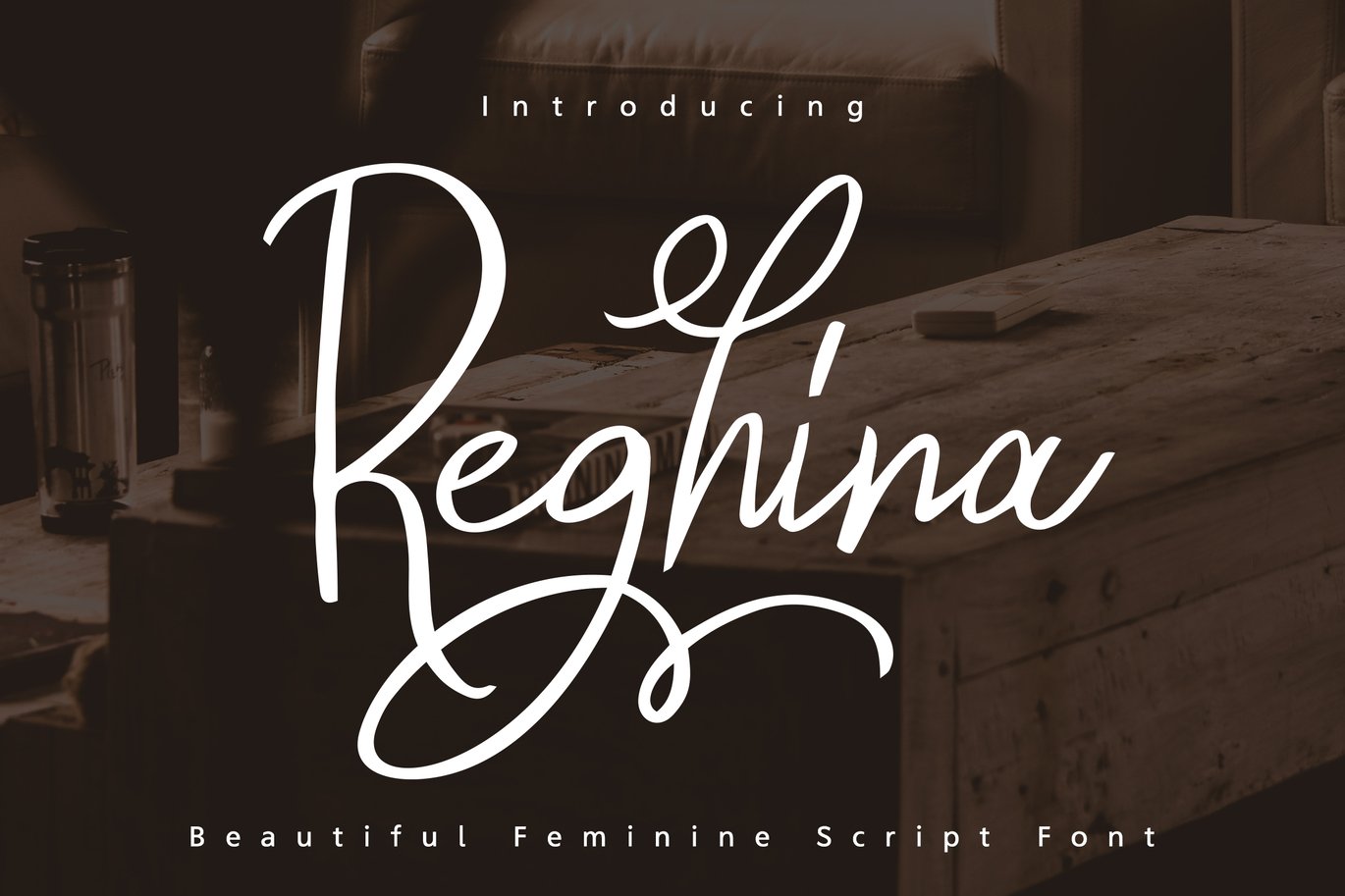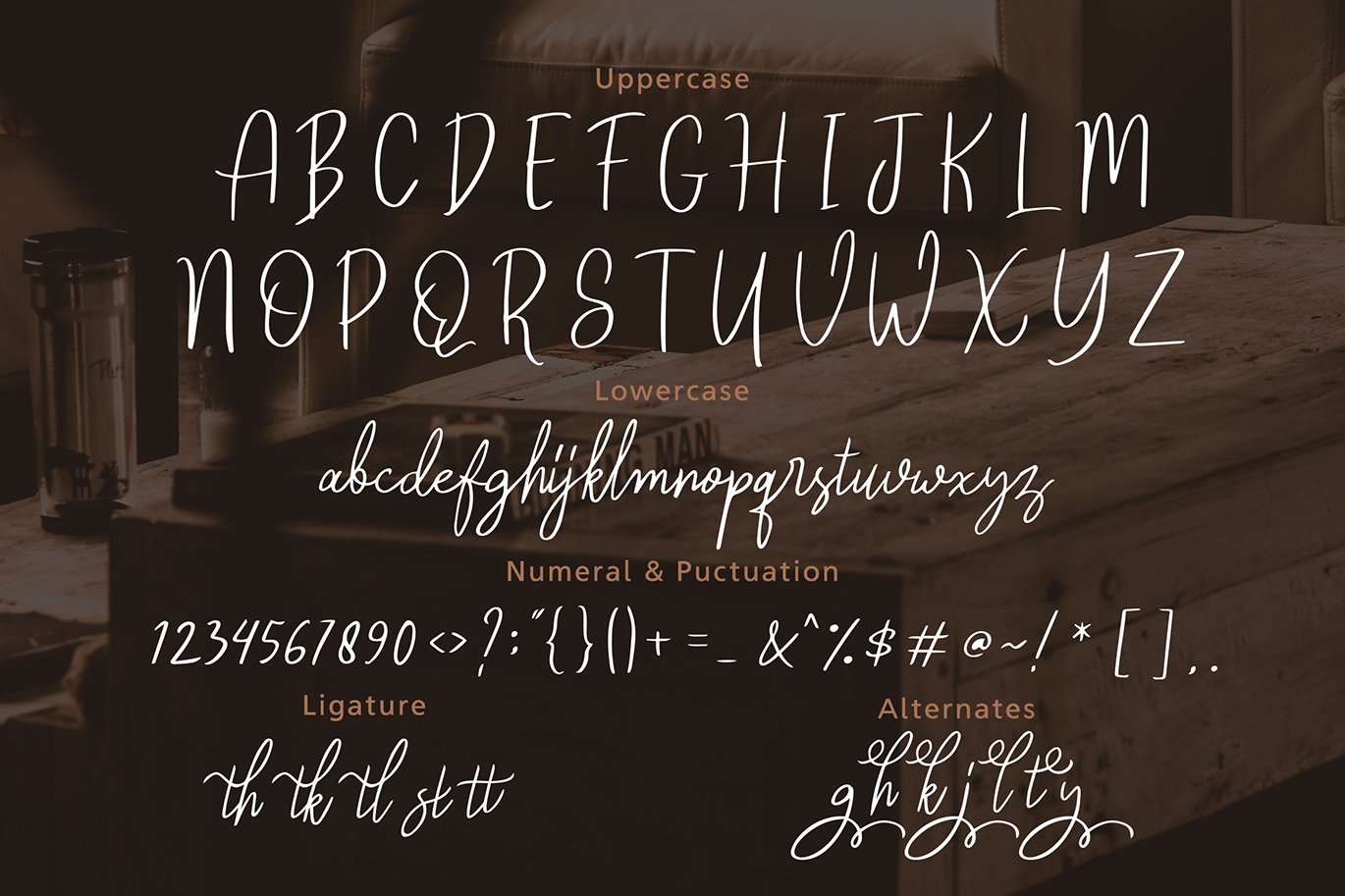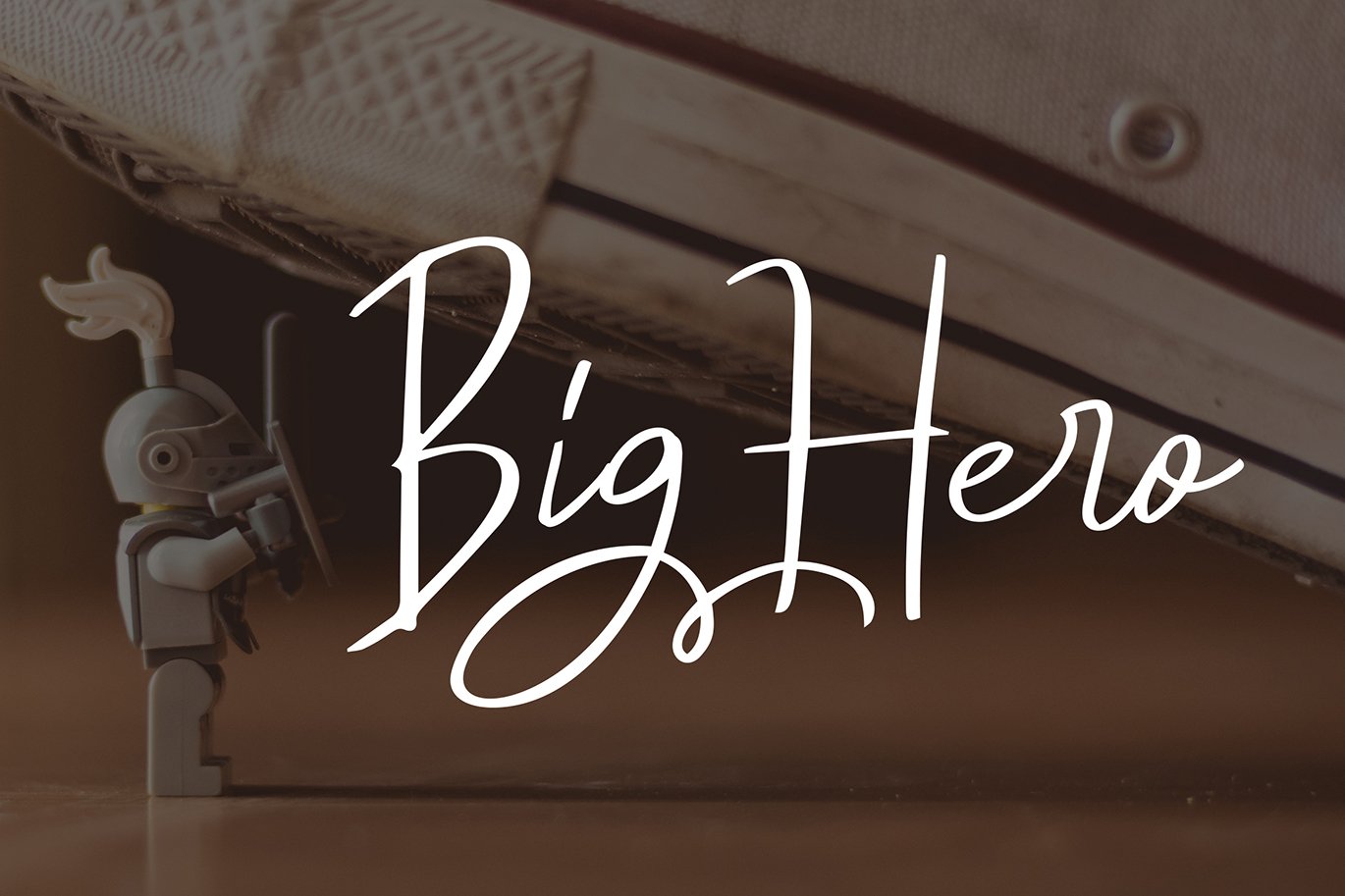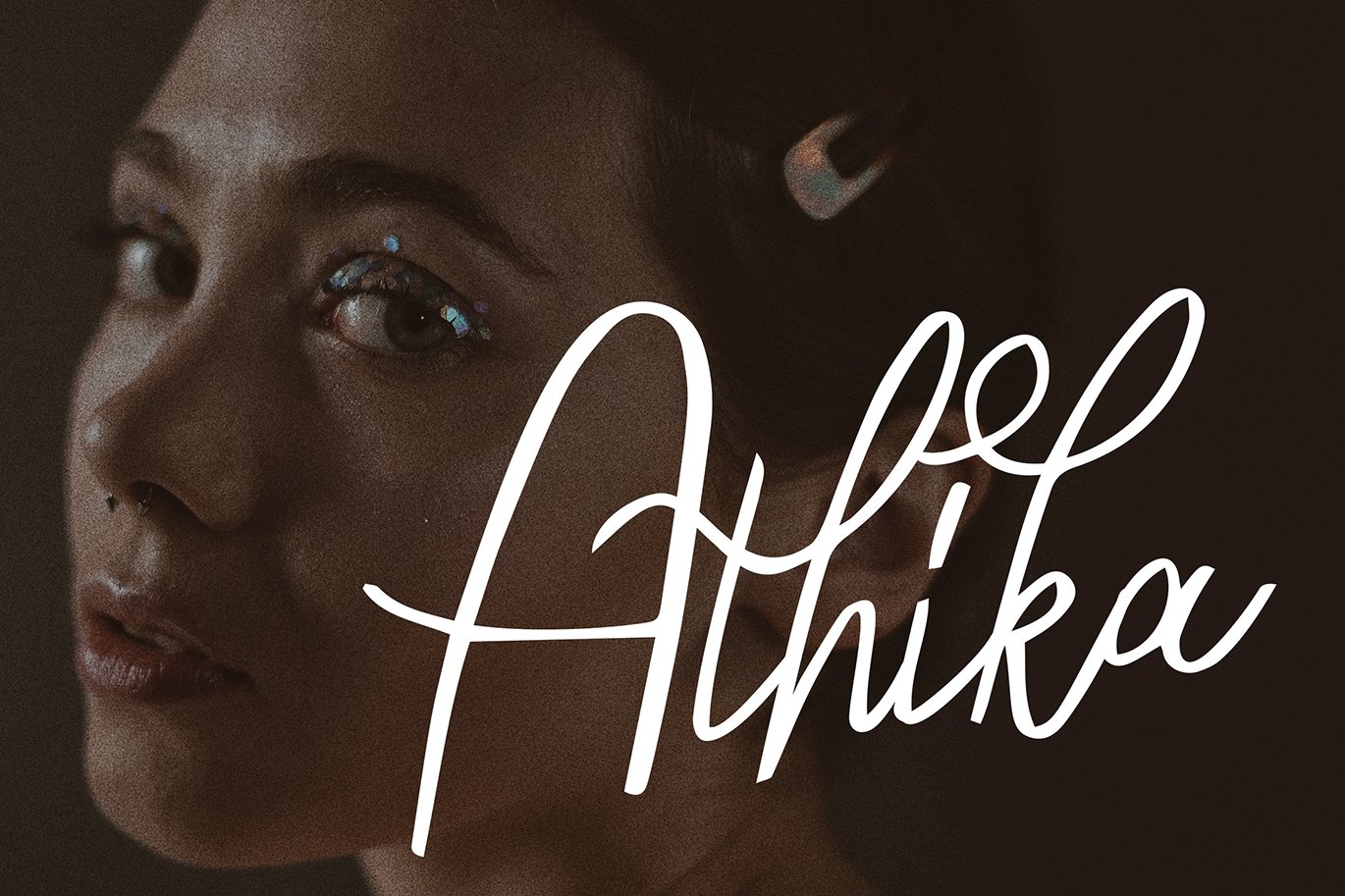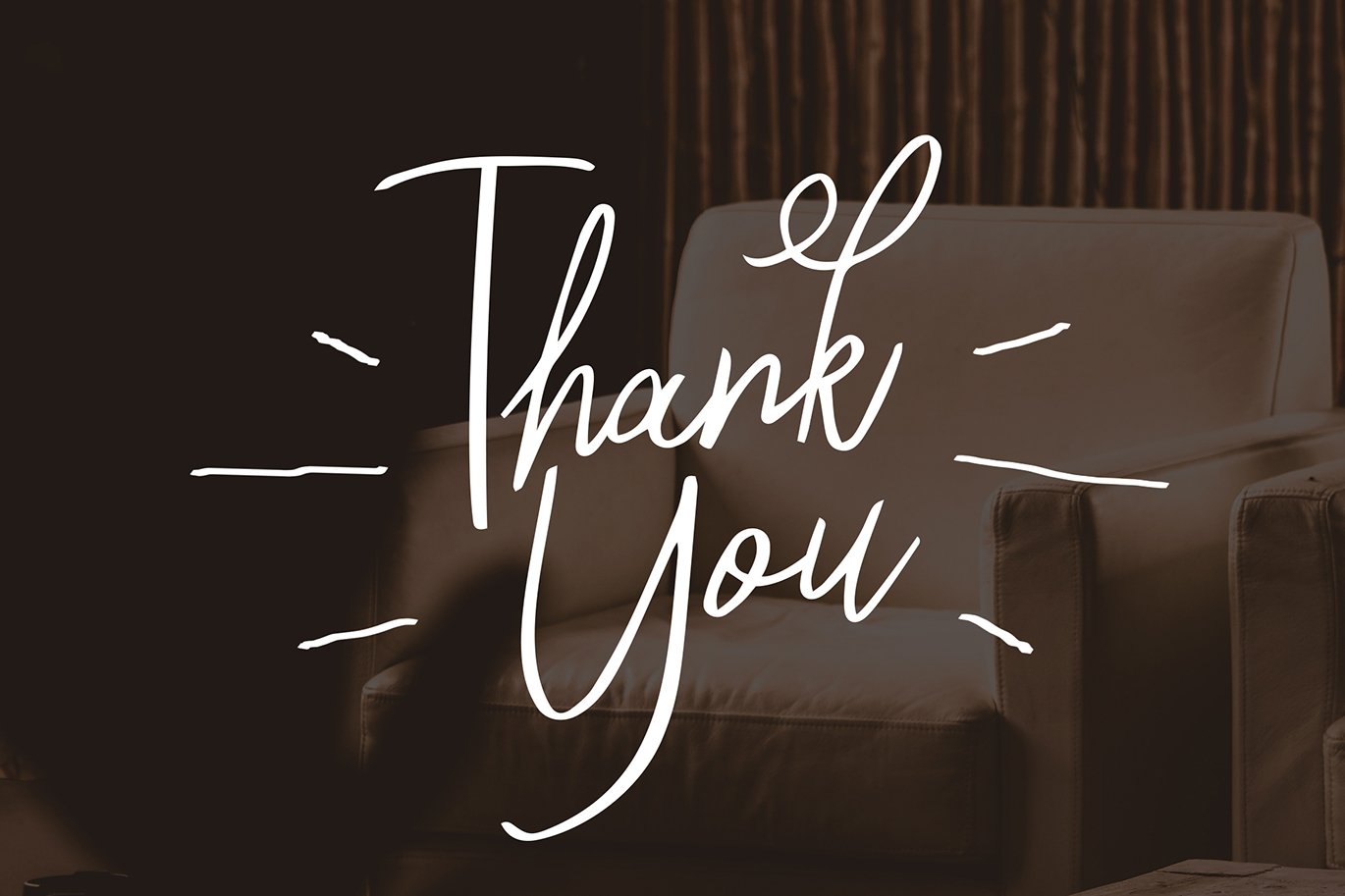
Reghina – Beautiful Feminine Script Font
So beautiful on invitation like greeting cards, branding materials, business cards, quotes, posters, and more!